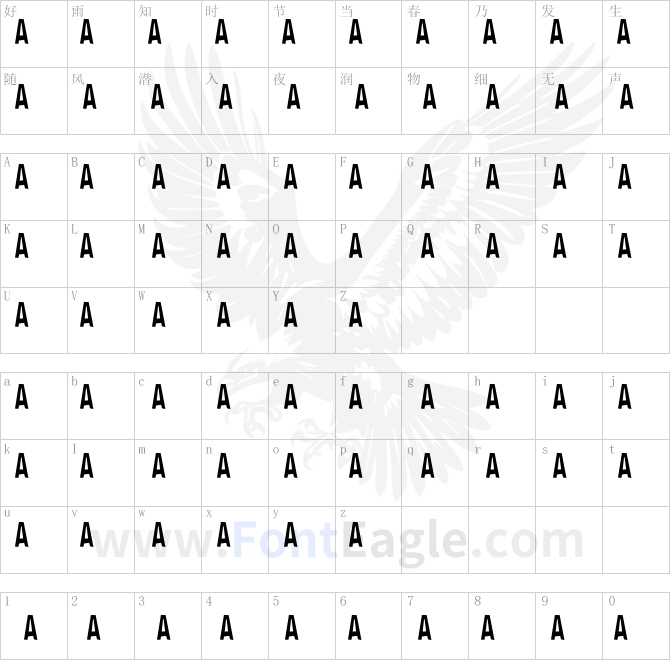
DEAR-RADITAS is a great font, widely used in graphic design, single-page menu design, poster design and other fields, and is deeply loved by designers.DEAR-RADITAS download.